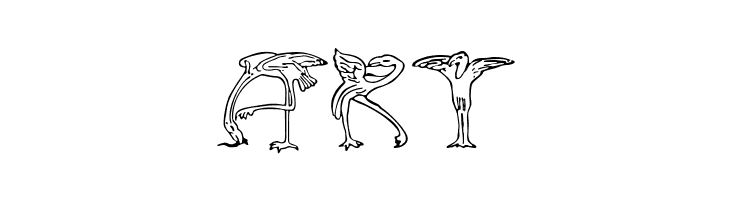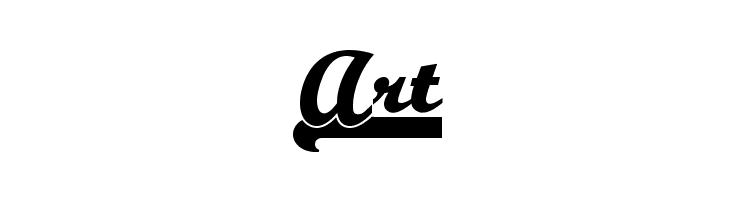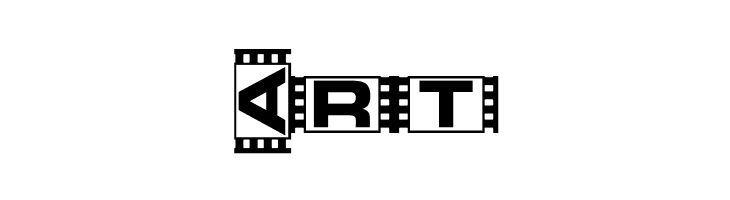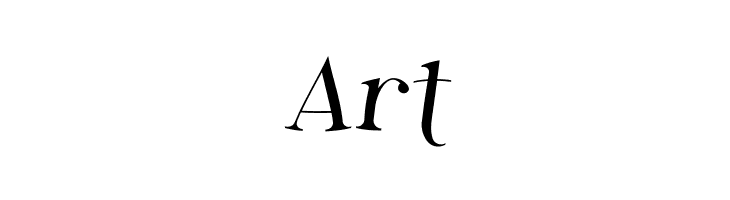
( Fonts by Jester Font Studio )
A decorative font with letters formed by stylized flamingo illustrations.
A bold, decorative script font with flowing cursive letterforms and shadow effects.
( Fonts by Harold Lohner - www.haroldsfonts.com )
A bold, decorative font with a filmstrip border, ideal for vintage or cinematic themes.
( Fonts by Emil Bertell - www.fenotype.com )
A classic and elegant serif font with smooth, flowing letterforms and moderate contrast.